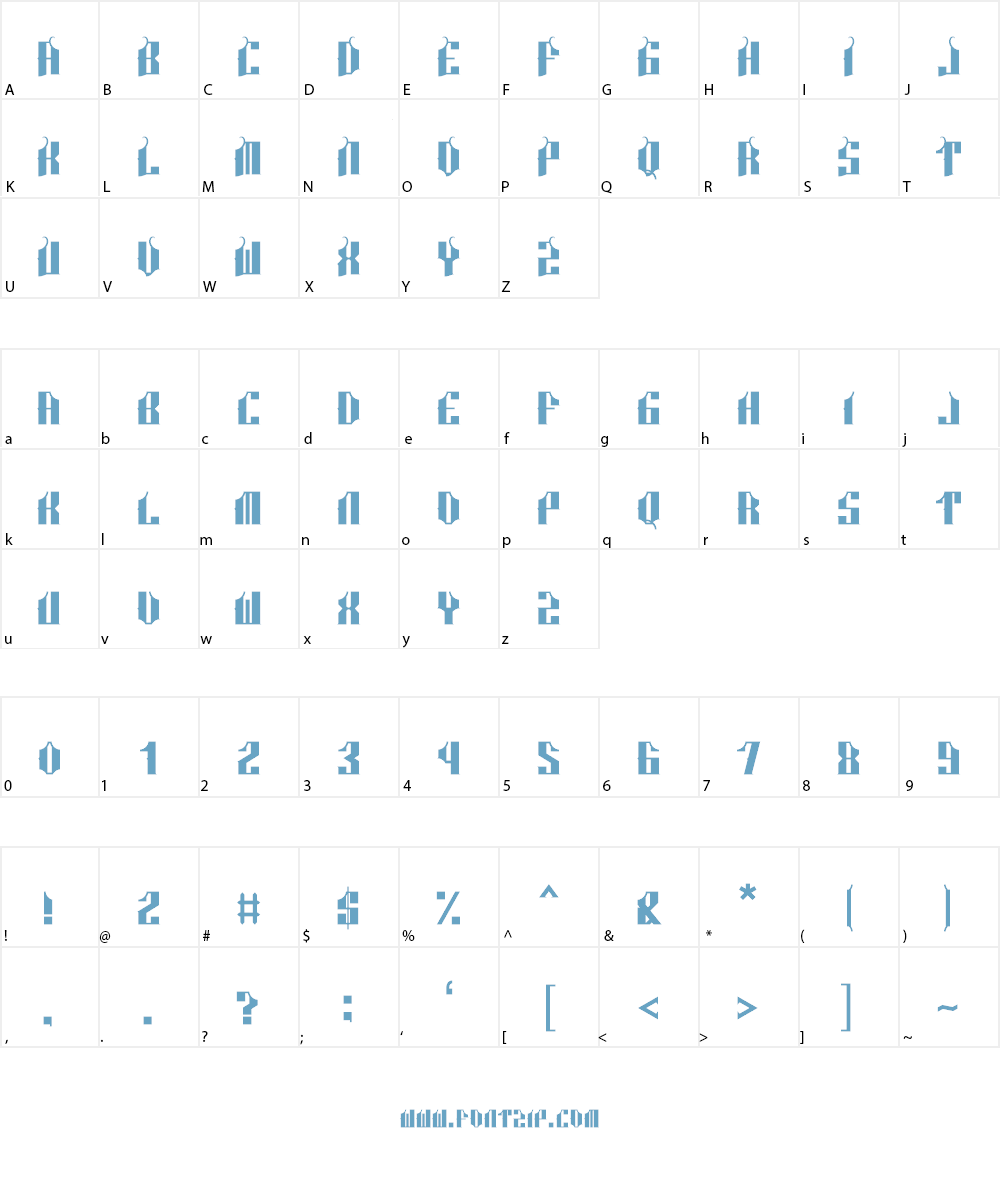
Malocknow is a vector-based typeface blackletter which consists of 348 glyphs, has a strong and sharp character so that it is suitable for use in various elements. a combination of Standard and Swash types to produce a pleasant visual to see.